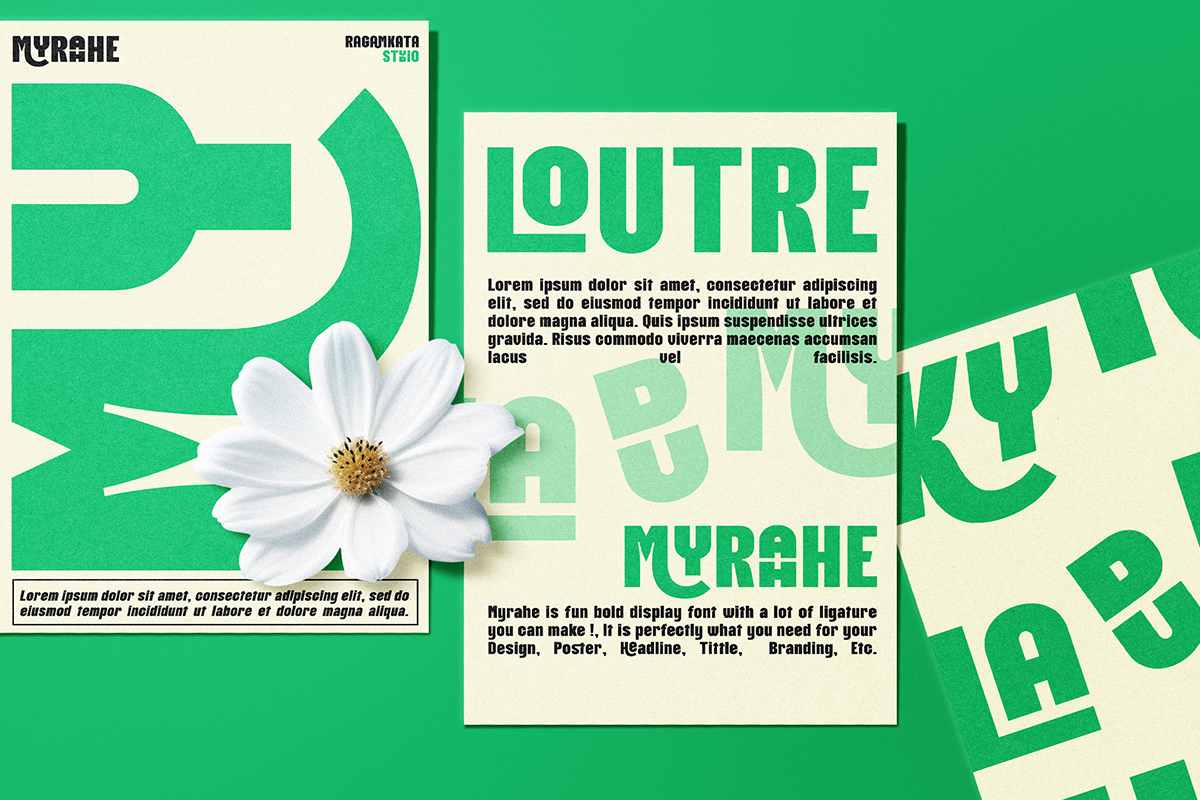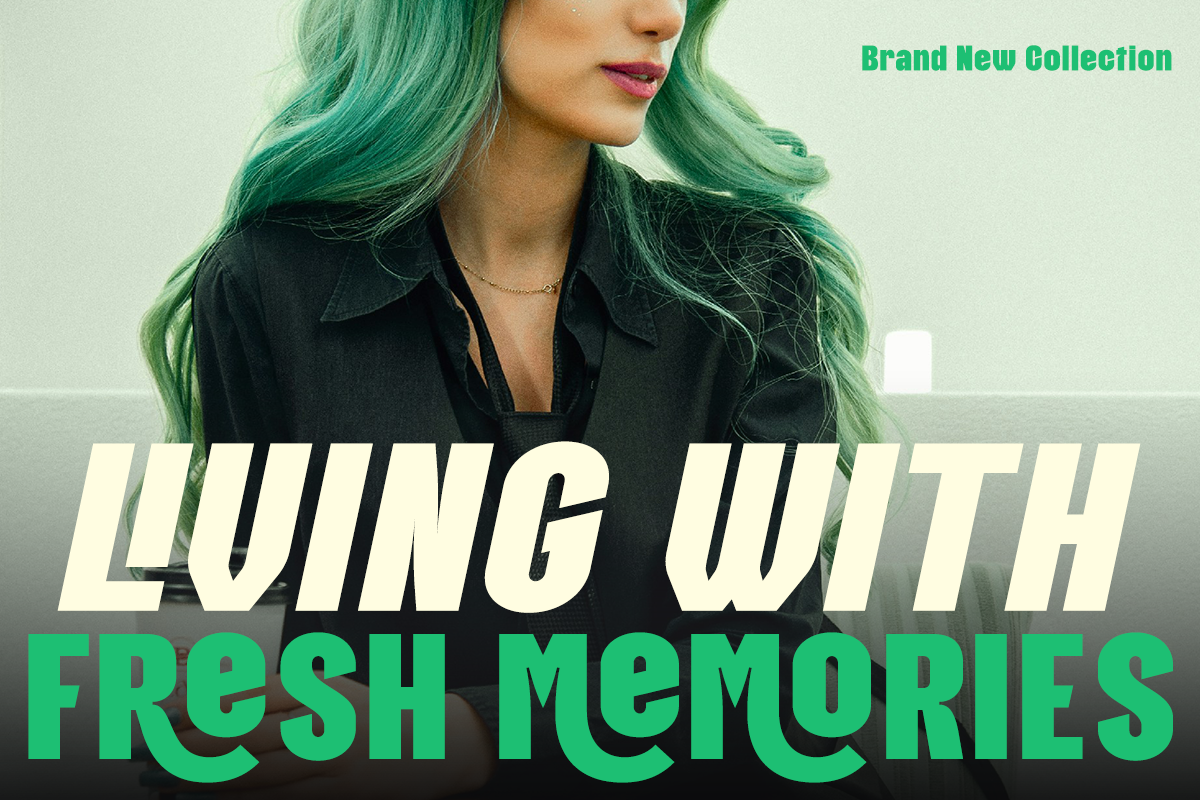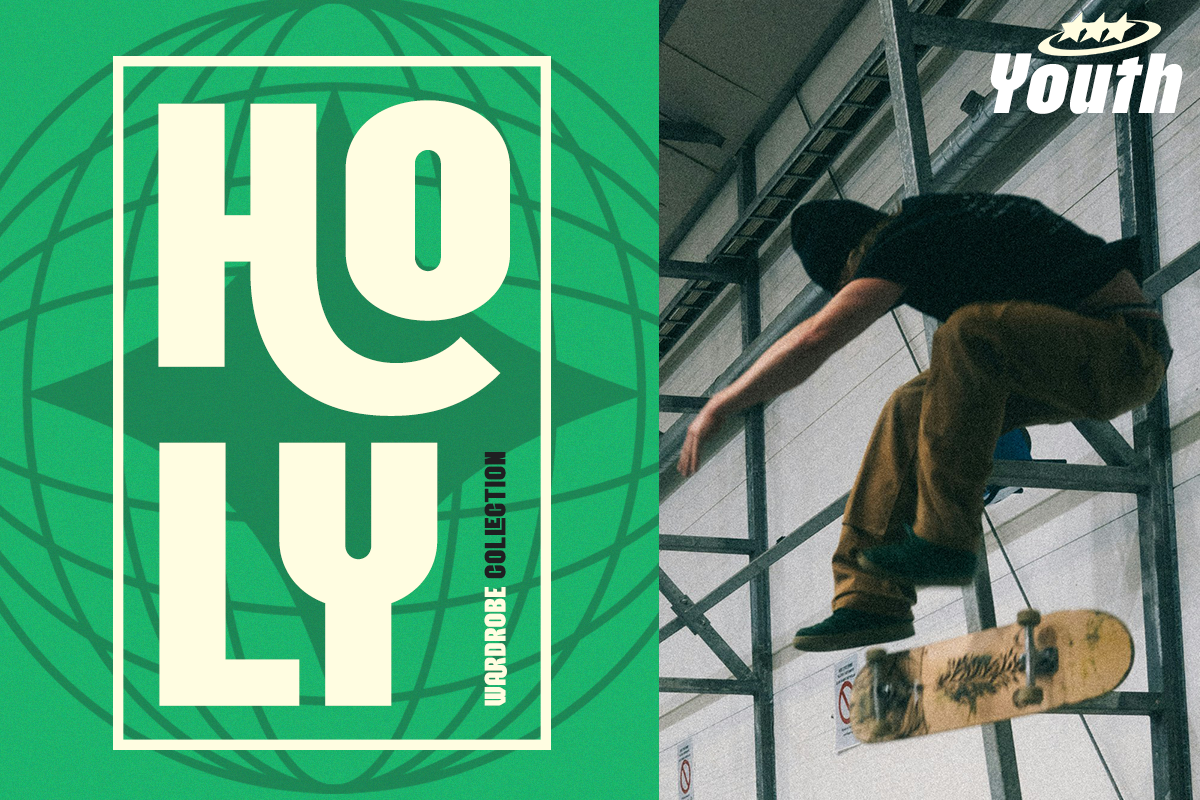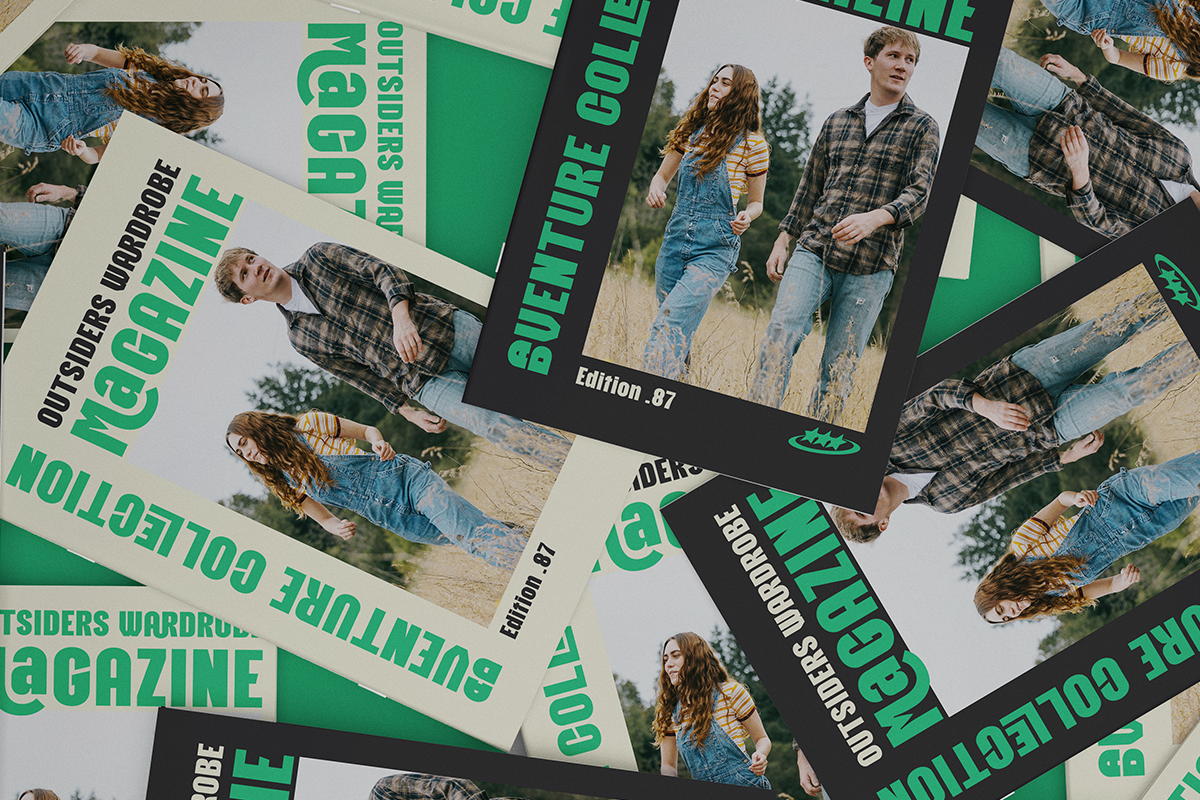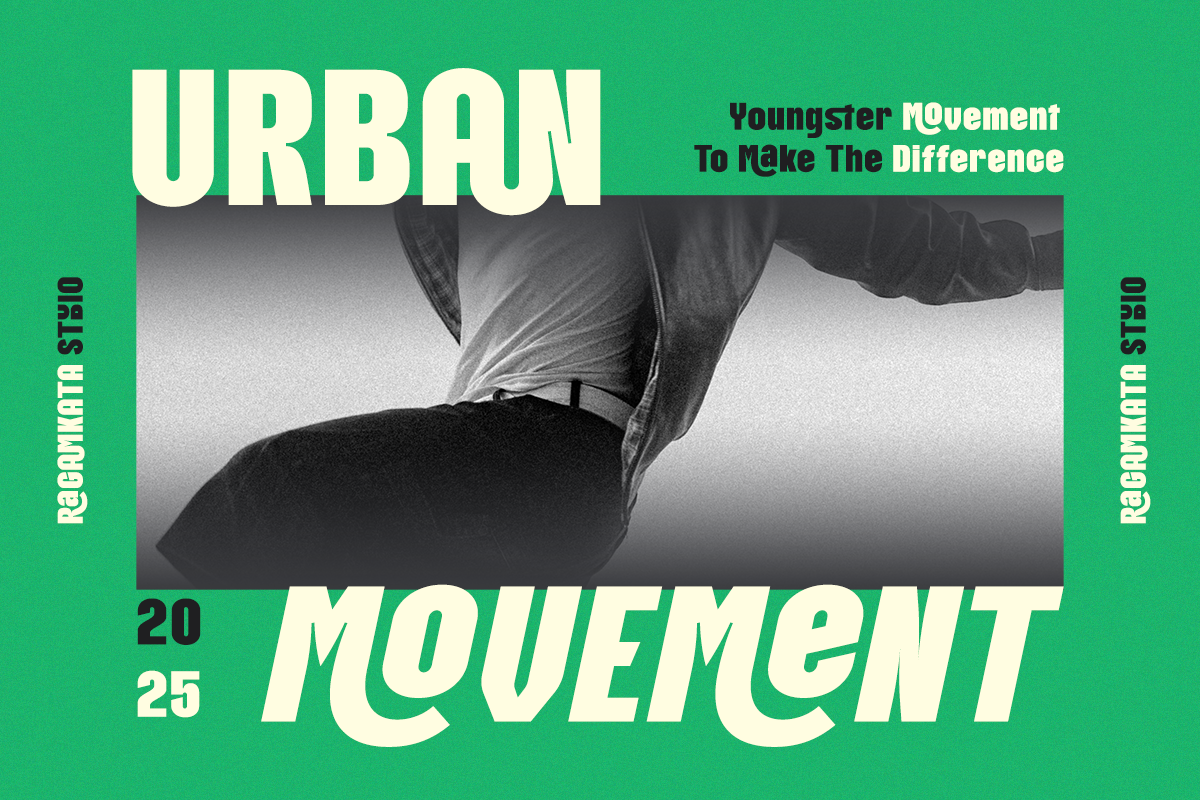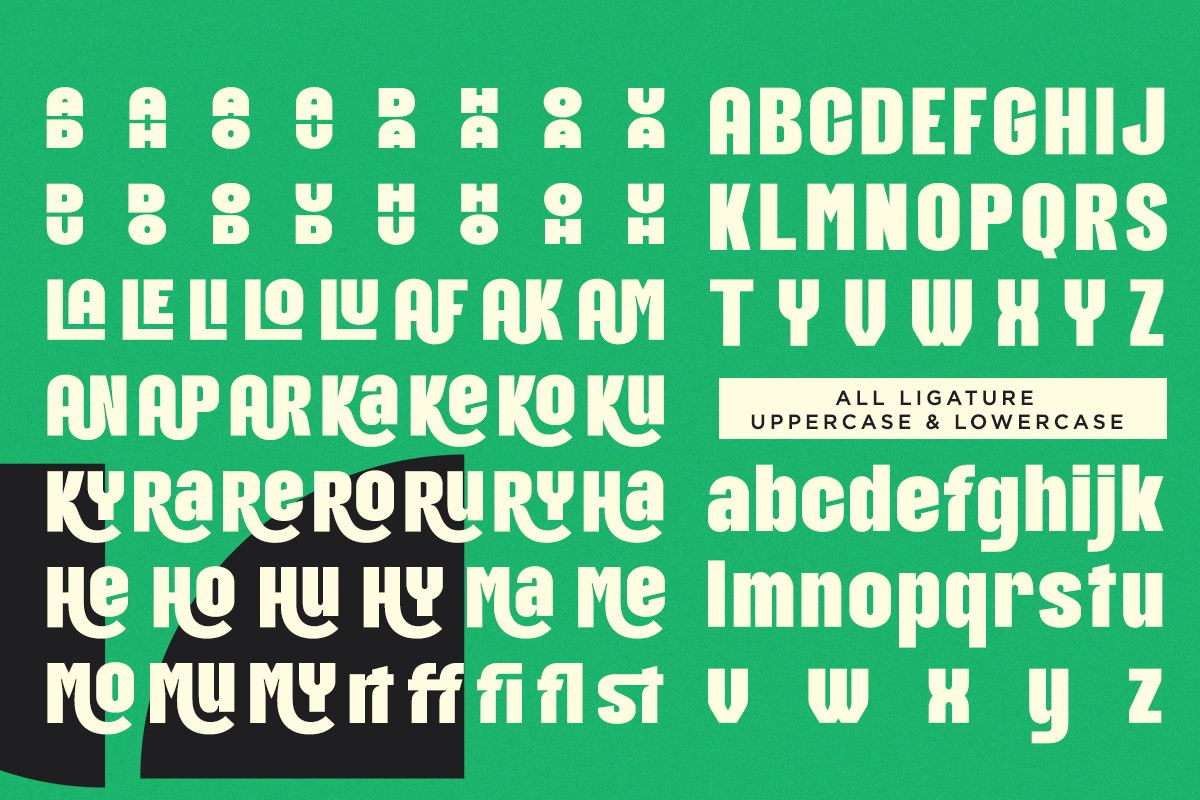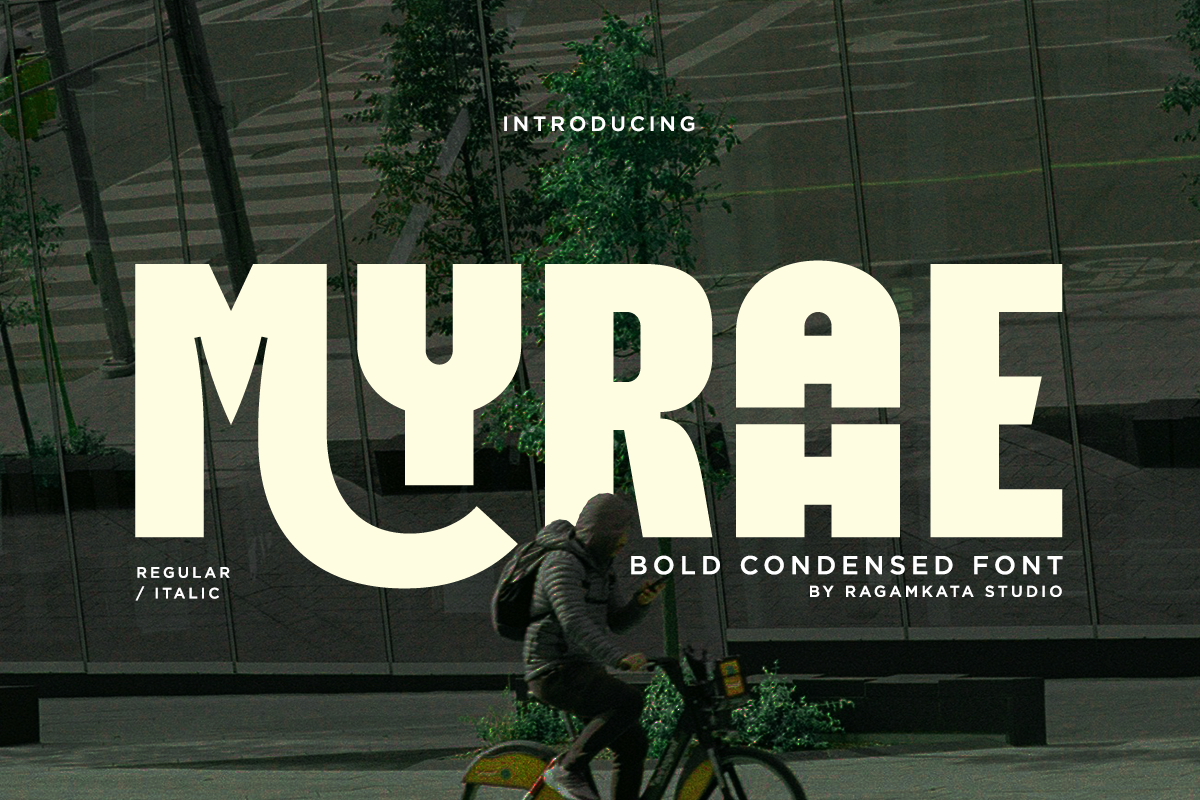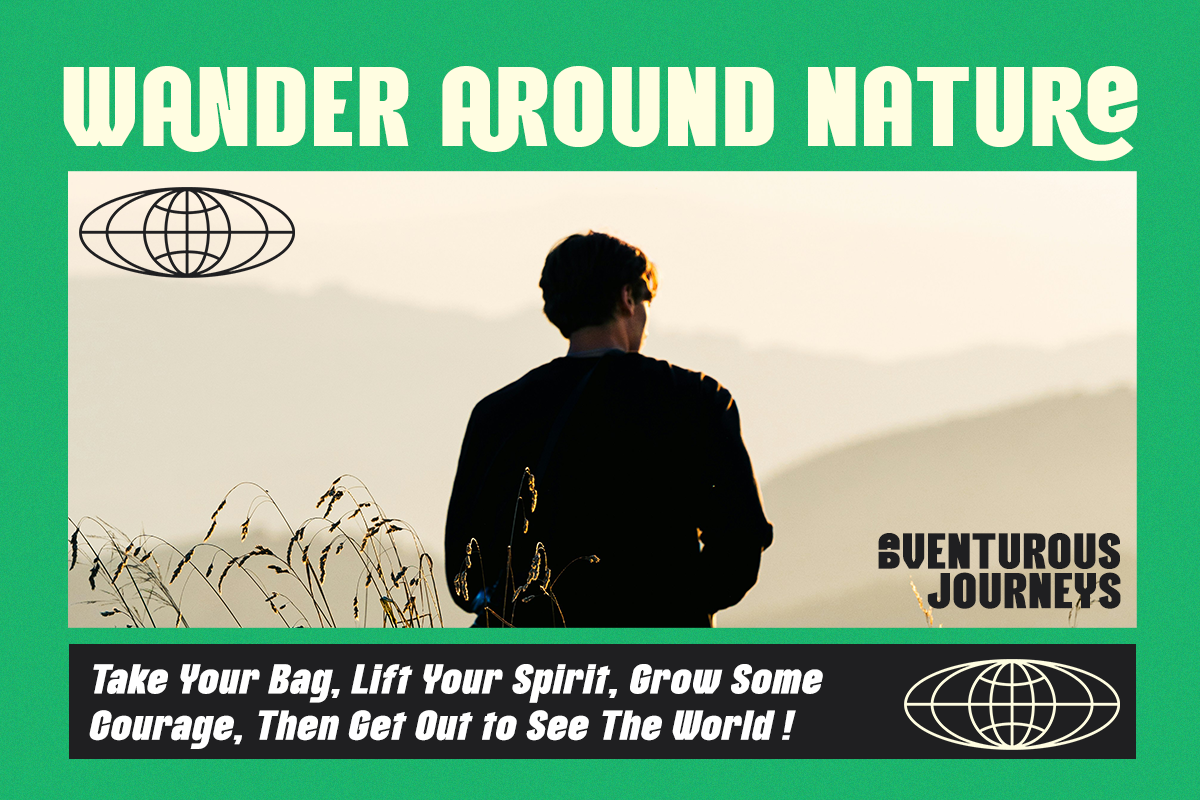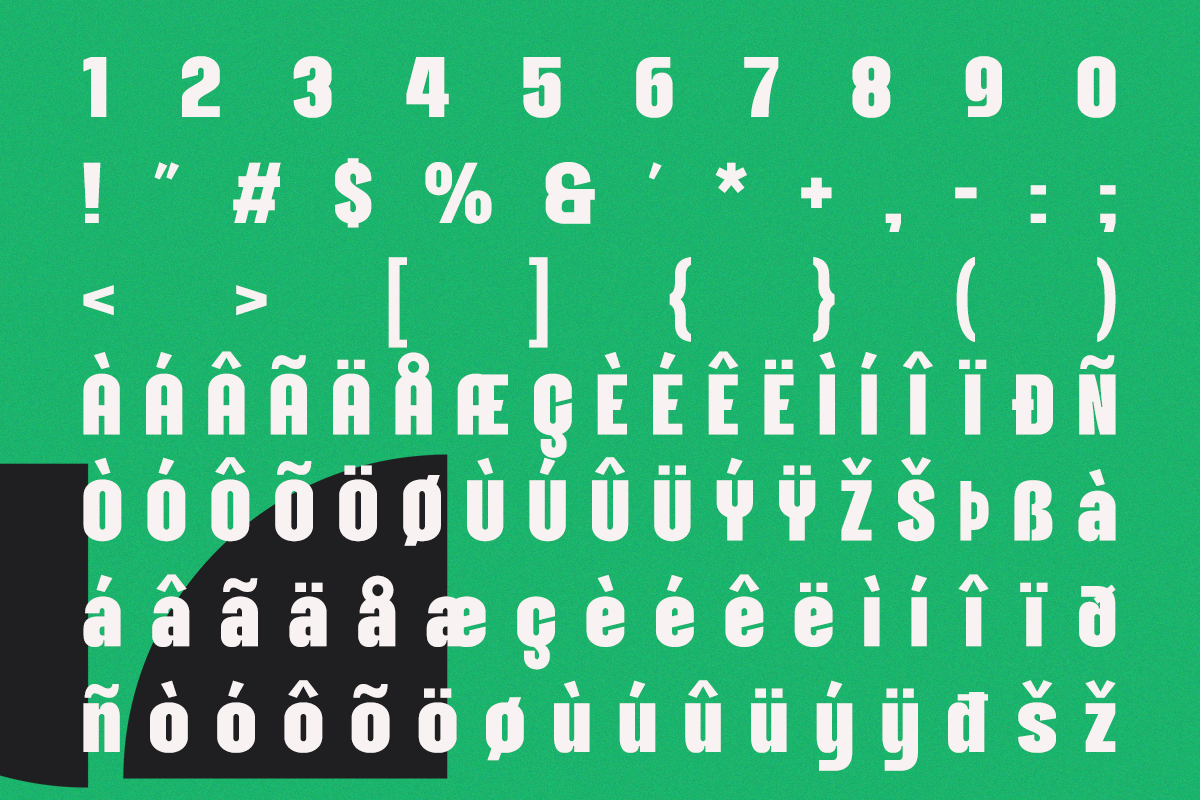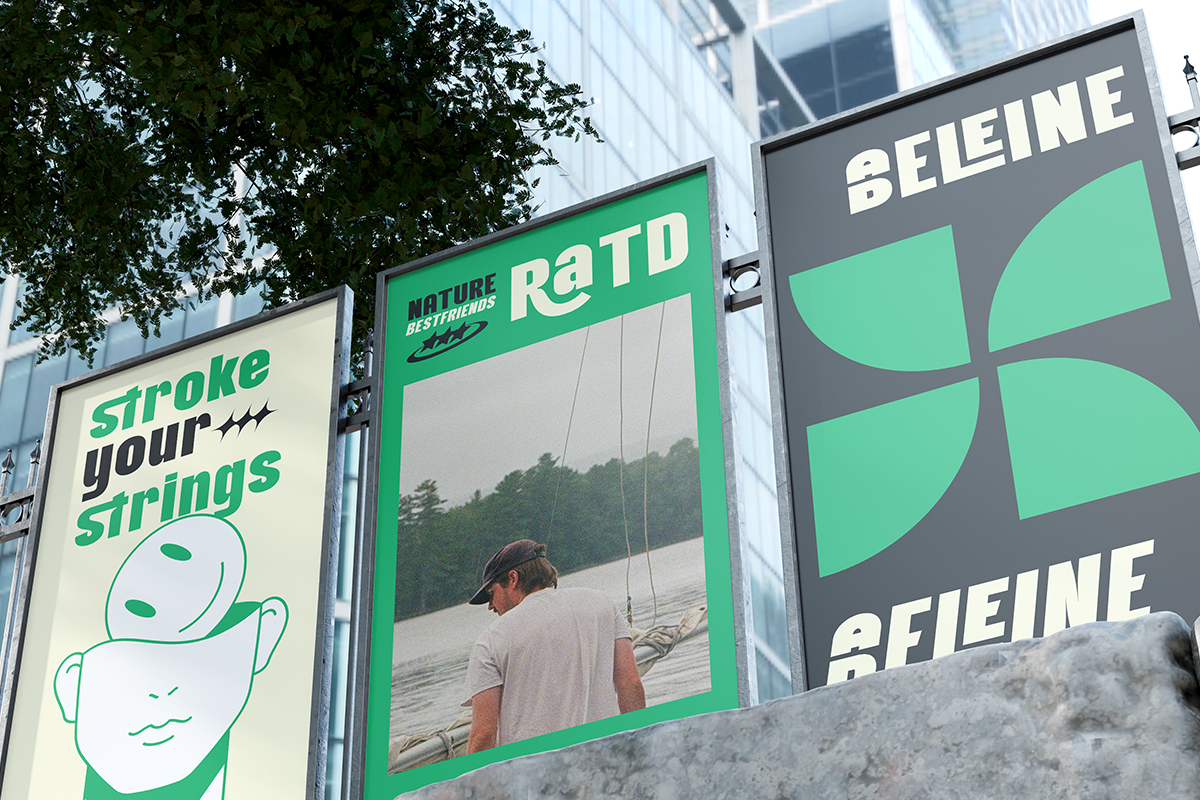
Myrahe - Bold Condensed Font
Introducing Myrahe, a striking bold condensed typeface designed to command attention and elevate your visual presence. With its geometric structure, sharp edges, and modern urban attitude, Myrahe brings a perfect balance of strength and style to your typography.
Crafted for designers who want their message to stand out, Myrahe is ideal for posters, album covers, branding, editorial layouts, signage, advertising, and any creative project that thrives on bold aesthetics.
- Stylish Ligatures
- Uppercase, and Lowercase
- Number, and Symbol